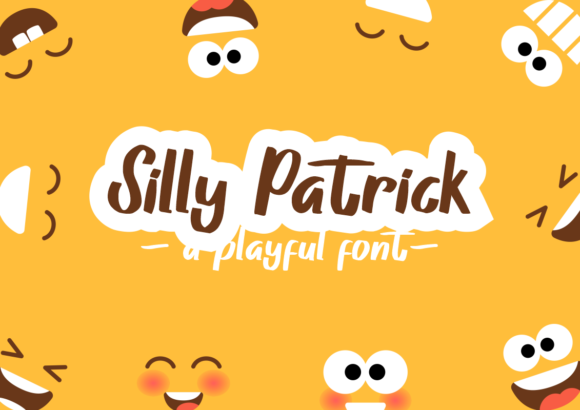
Unleash the whimsy and charm of Silly Patrick Font, a captivating handwritten script that will enchant your designs. Step into a world of whimsical book covers, where your creations dance with playful elegance. With its effortless flow and undeniable allure, this font captivates imaginations and ignites creativity.
As you immerse yourself in the world of Silly Patrick, you'll discover a font designed to evoke laughter, joy, and a touch of nostalgia. Its carefully crafted curves and enchanting loops weave a tale of wonder and delight, inviting you to explore the boundless possibilities it holds.
Whether you're crafting enchanting children's books, enchanting invitations, or simply adding a touch of playfulness to your designs, Silly Patrick Font is your key to unlocking boundless creativity. Allow its whimsical spirit to guide your artistic journey as you create designs that spark joy and leave a lasting impression.
Indulge in the magic of Silly Patrick today and experience the transformative power of a font that will make your creations shine with an unforgettable sparkle.